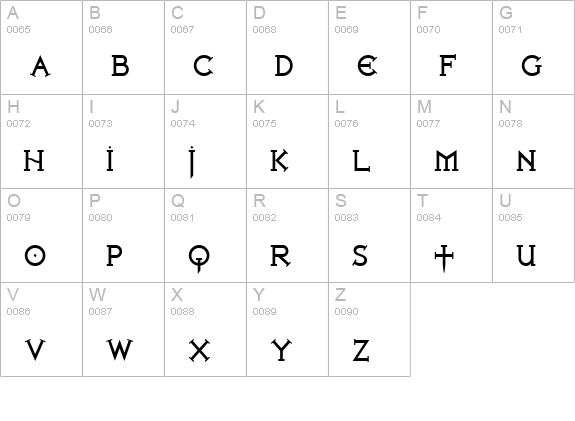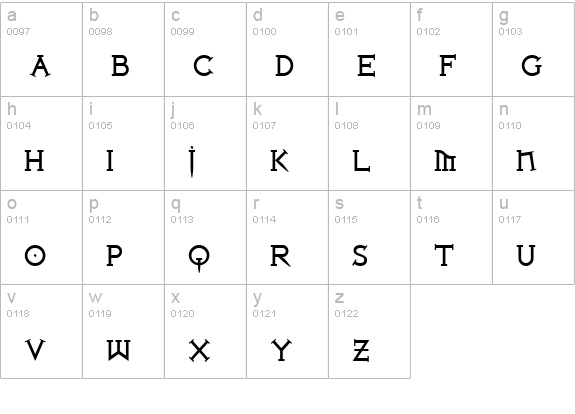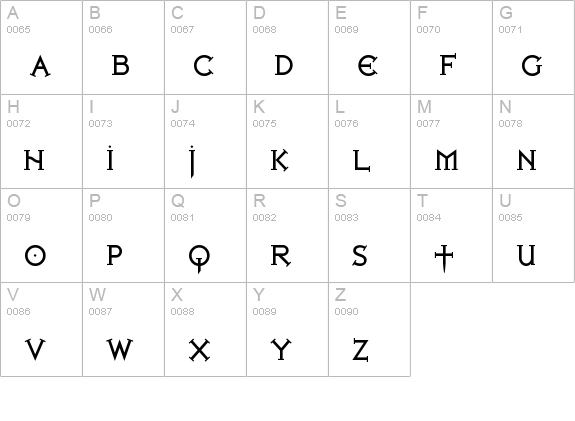
Iron League Bold is a strong, high-contrast variant in the Iron typeface family \xE2\x80\x94 well suited to headlines, attention-grabbing titles, and strong calls-to-action.
Introducing Iron League Bold, a bold and powerful font that exudes confidence and strength. This stunning typeface is perfect for making a bold statement in your designs, whether it's for a logo, headline, or any other creative project. Iron League Bold commands attention with its robust and commanding letterforms. Each letter is meticulously crafted to strike the right balance between boldness and readability, making it a versatile choice for both print and digital applications. This font is freely available to download at FontsMarket.com, the premier online destination for high-quality fonts. With just a few clicks, you can access this remarkable typeface and enhance your designs with its commanding presence. Whether you're creating a poster for a sports event, designing a magazine cover, or crafting a striking visual identity for a brand, Iron League Bold will deliver the impact you desire. Its strong and sturdy appearance will communicate your message with authority, leaving a lasting impression on your audience. Don't settle for ordinary fonts when you can have the extraordinary. Download Iron League Bold today, and unleash the power of this free font from FontsMarket.com. Elevate your designs to new levels of excellence and make a bold statement that cannot be ignored.